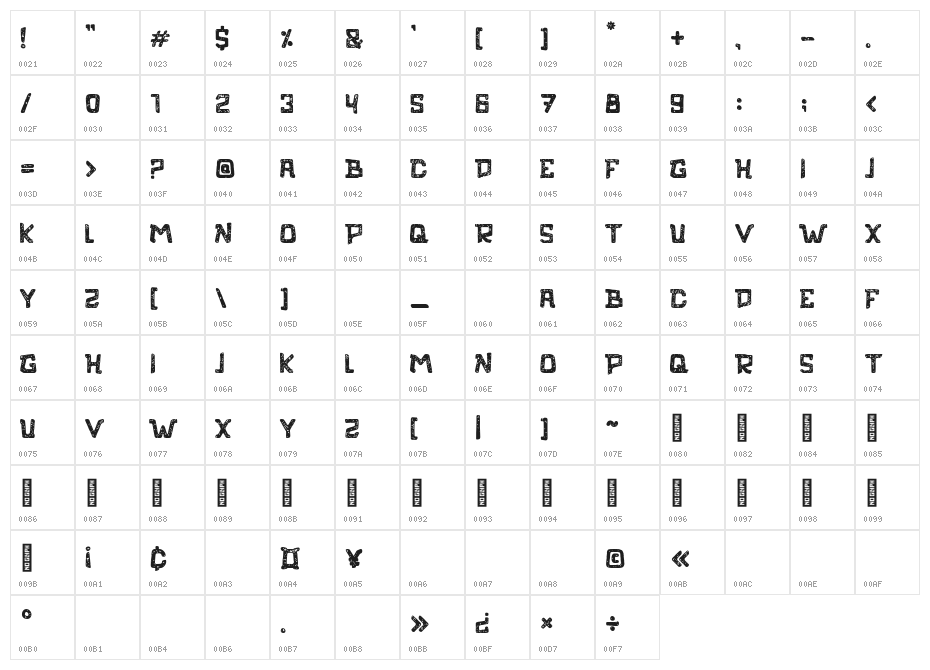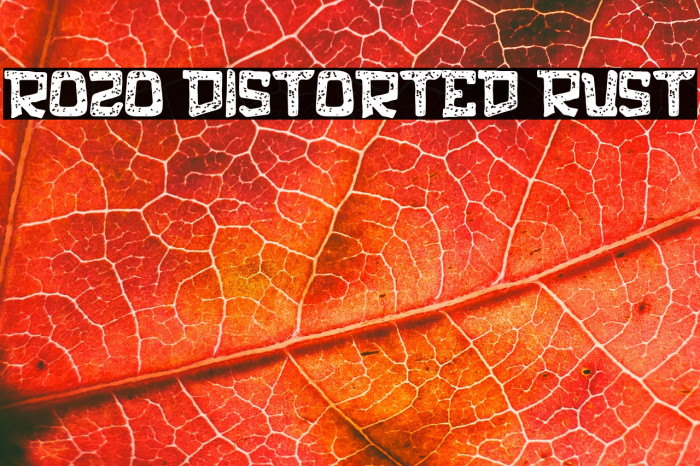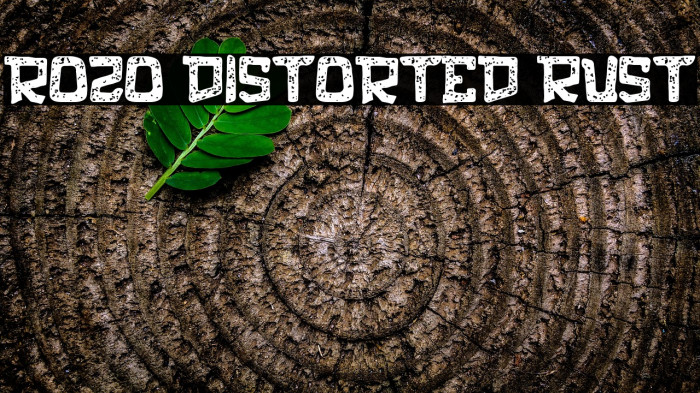
rozo Distorted Rust Font
rozo Distorted Rust Description
This font features a rugged, distressed appearance with a bold, blocky structure. The letters are designed with a textured, weathered look, giving them a vintage, industrial feel. Each character is uniquely crafted with irregular edges and a speckled pattern that mimics rust or decay, adding to its gritty aesthetic. The uppercase and lowercase letters maintain a consistent style, with numbers and special characters following the same design principles. This font is ideal for projects that require a bold, eye-catching statement with a touch of nostalgia or urban edge.
| Overall Style | Vintage |
| Proposed Projects | Perfect for posters, album covers, branding for edgy or retro-themed businesses, and any design needing a bold, textured look. |